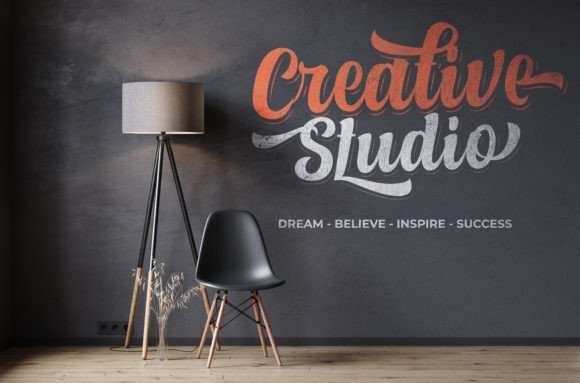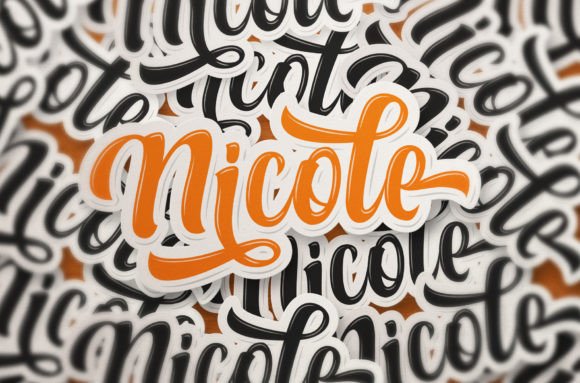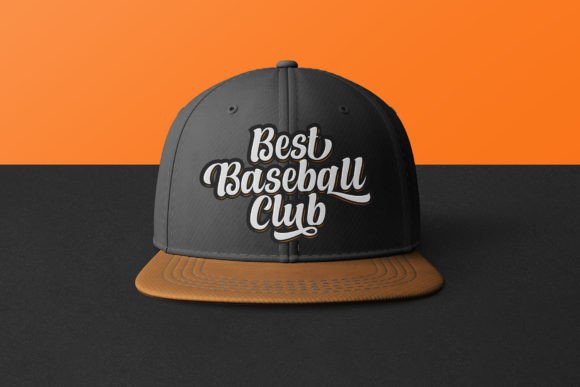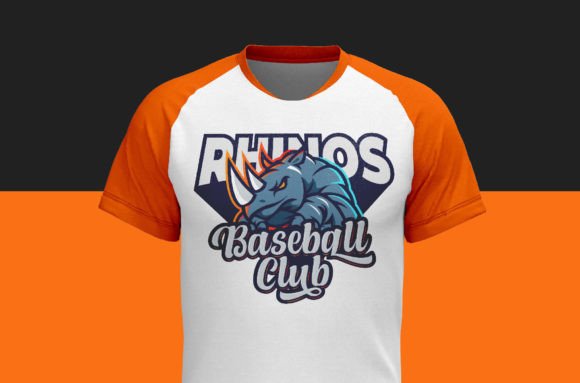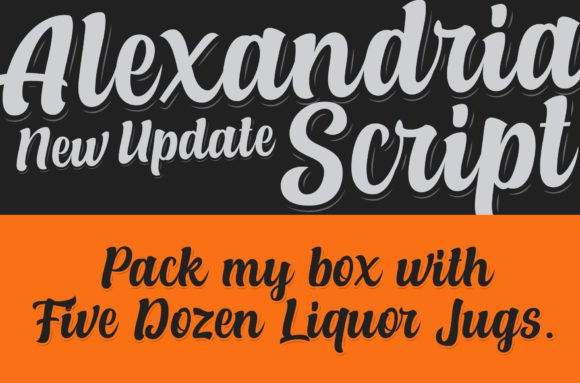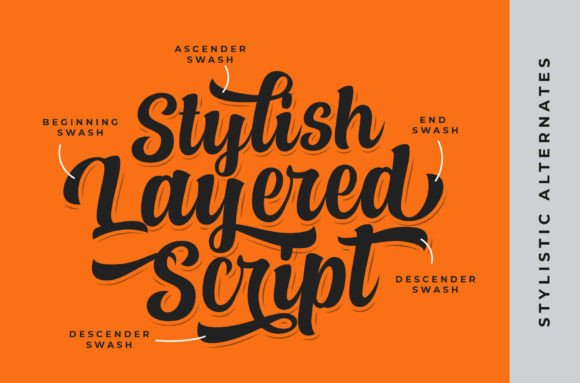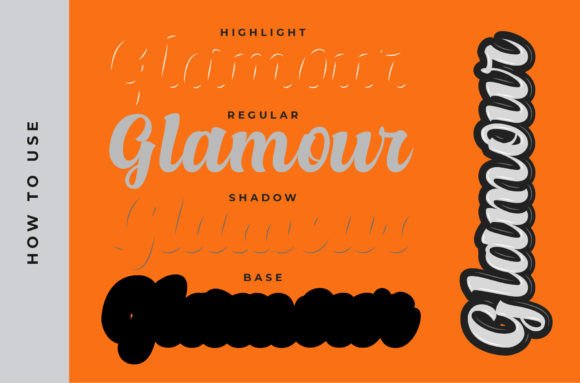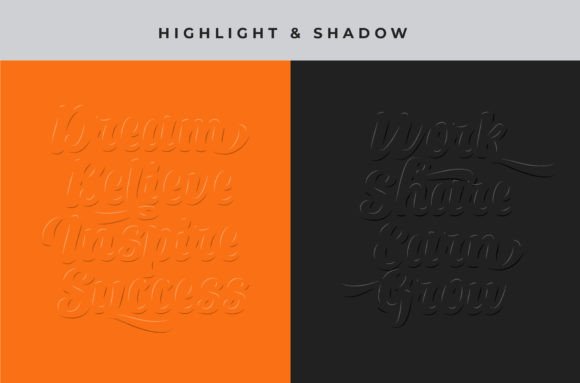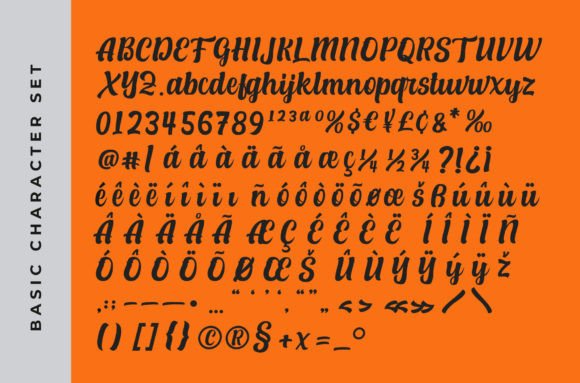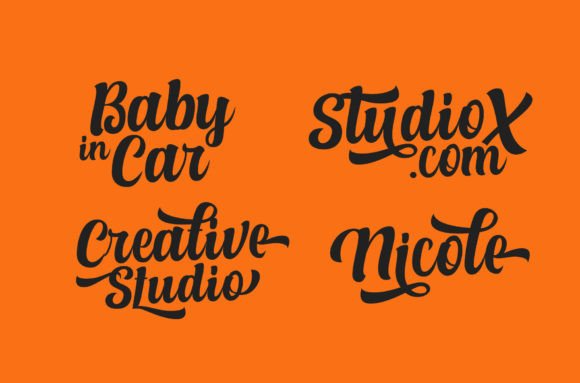
Alexandria Script Font
About Alexandria Script Font
“Alexandria Script” is more than just a font; it’s a cool and unique script typeface designed to make a statement. With its stylish and distinctive qualities, this font looks stunning on various design applications, including wedding invitations, thank you cards, quotes, greeting cards, logos, and business cards, providing a beautiful handwritten touch.
The cool and unique vibe of “Alexandria Script” is immediately apparent in its script design. Each letter is crafted with a sense of style, contributing to an overall aesthetic that is both eye-catching and individualistic. This makes it an ideal choice for projects that demand a font with a cool and unique appeal.
The versatility of “Alexandria Script” becomes evident in its adaptability to various design contexts. Whether used in wedding invitations to add an elegant touch or in business cards to create a distinctive brand identity, this font confidently fits into a diverse range of creative projects.
Imagine “Alexandria Script” gracing quotes, where its unique script adds character and personality. Picture it in logos, creating a memorable and stylish visual identity. “Alexandria Script” becomes a font that not only looks cool but also enhances the overall visual appeal of your designs.
In summary, “Alexandria Script” is not just a font; it’s a design asset that brings a cool and unique touch to your creative projects. Let it be the choice for adding style to your wedding invitations, business cards, and more. With “Alexandria Script,” every project becomes an opportunity to showcase the beauty of script typography with a contemporary and distinctive twist.